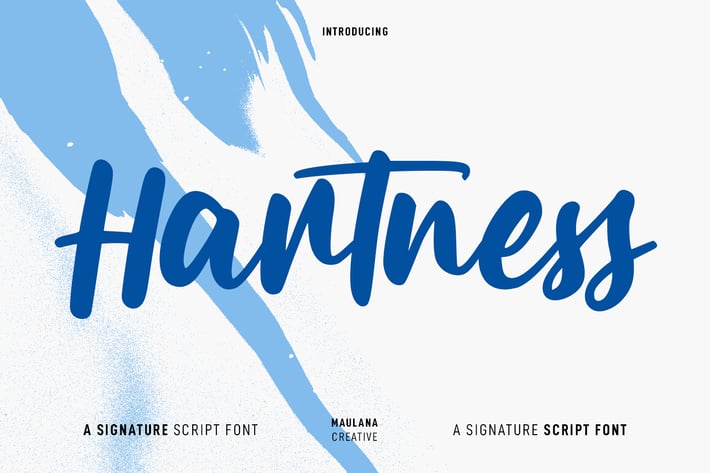
Hartness Script Font
Hartness is a casual signature script font. With medium contrast stroke, fun character with a bit of ligatures and alternates. To give you an extra creative work. Hartness font support multilingual more than 100+ language. This font is good for logo design, Social media, Movie Titles, Books Titles, a short text even a long text letter and good for your secondary text font with sans or serif. Make a stunning work with Hartness font.